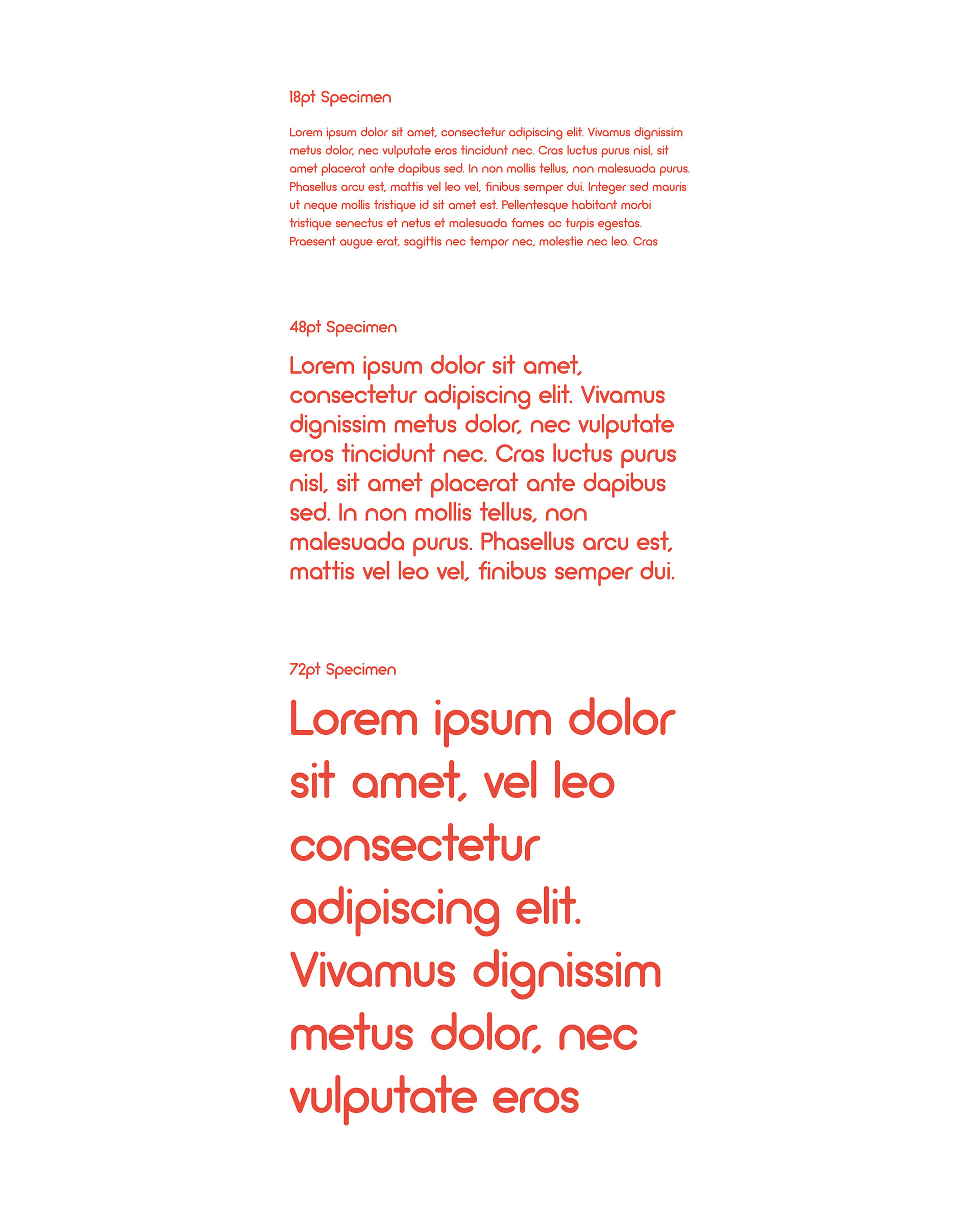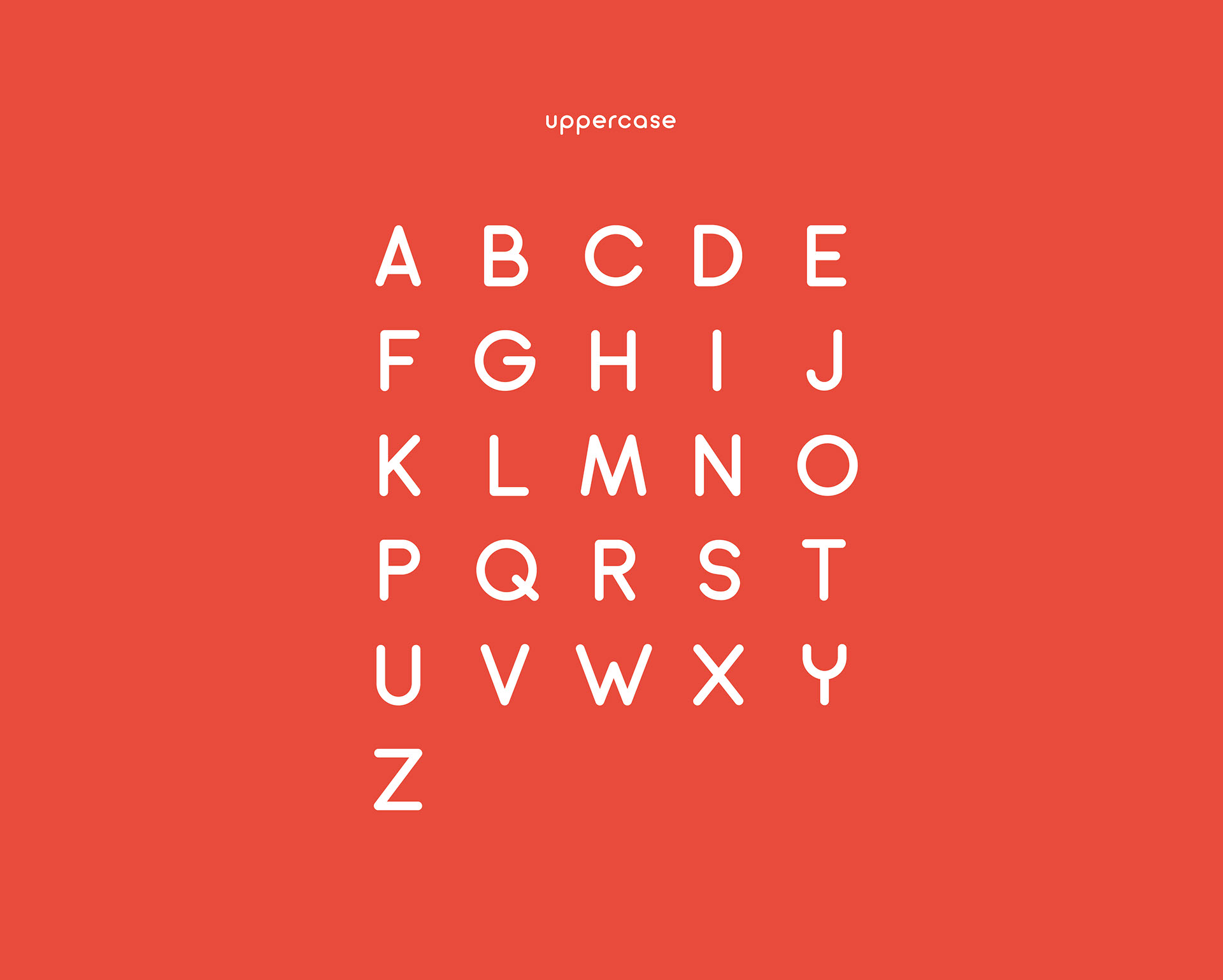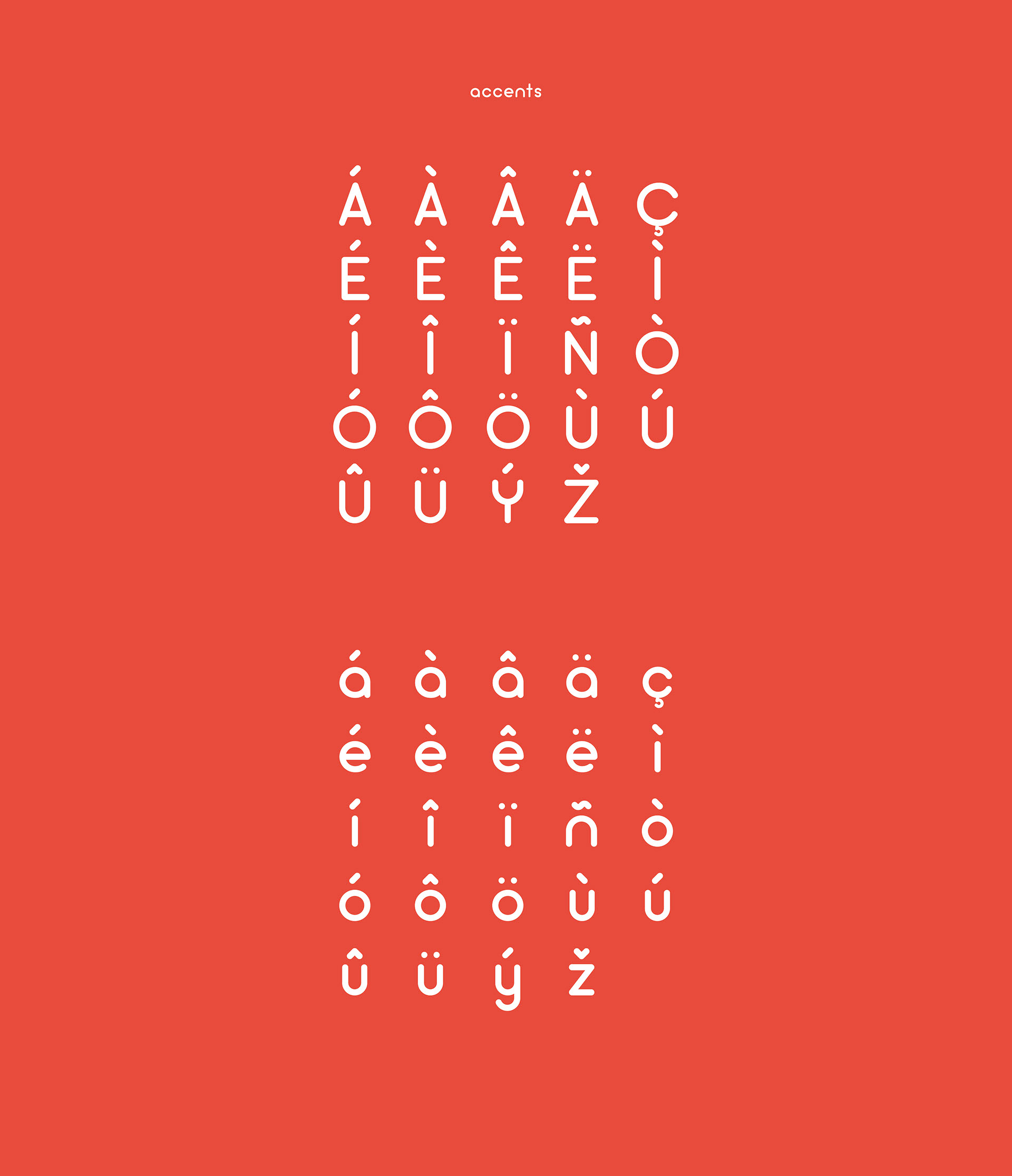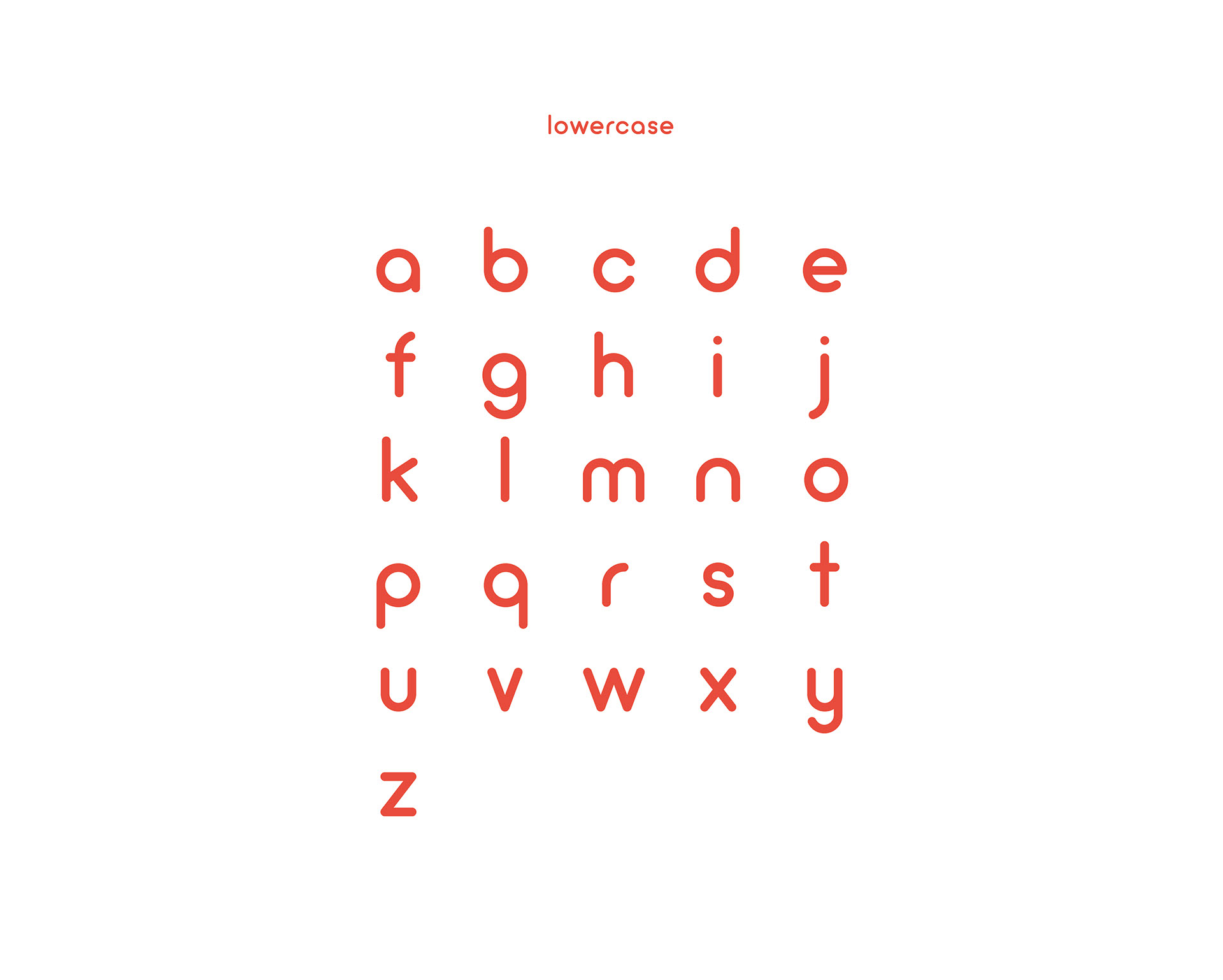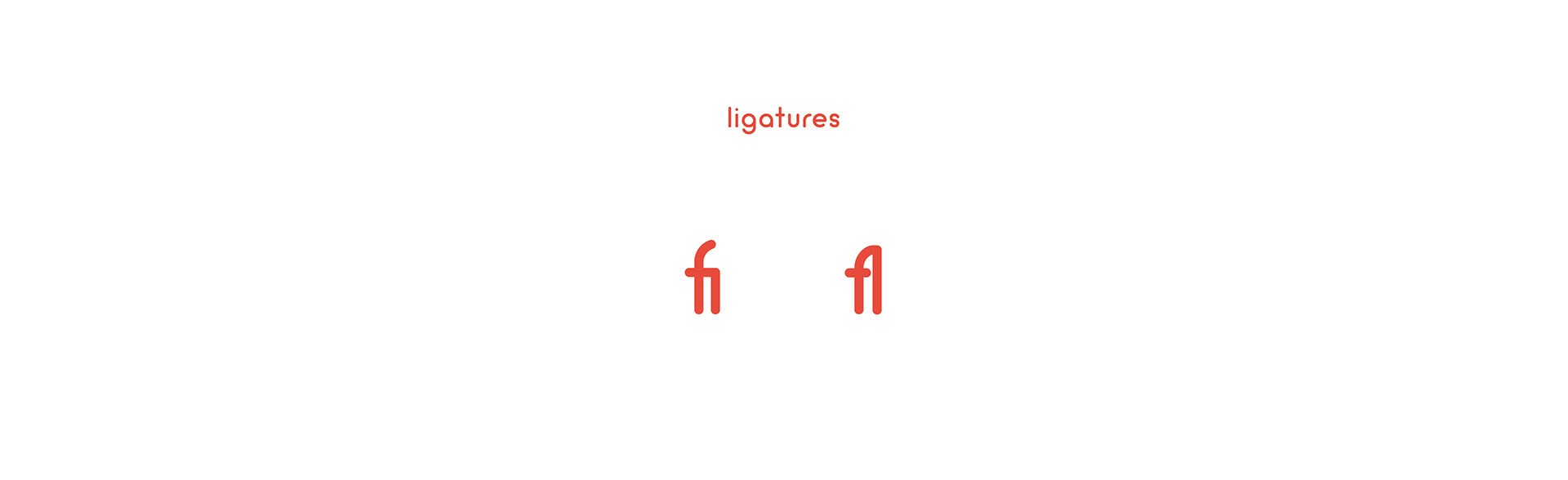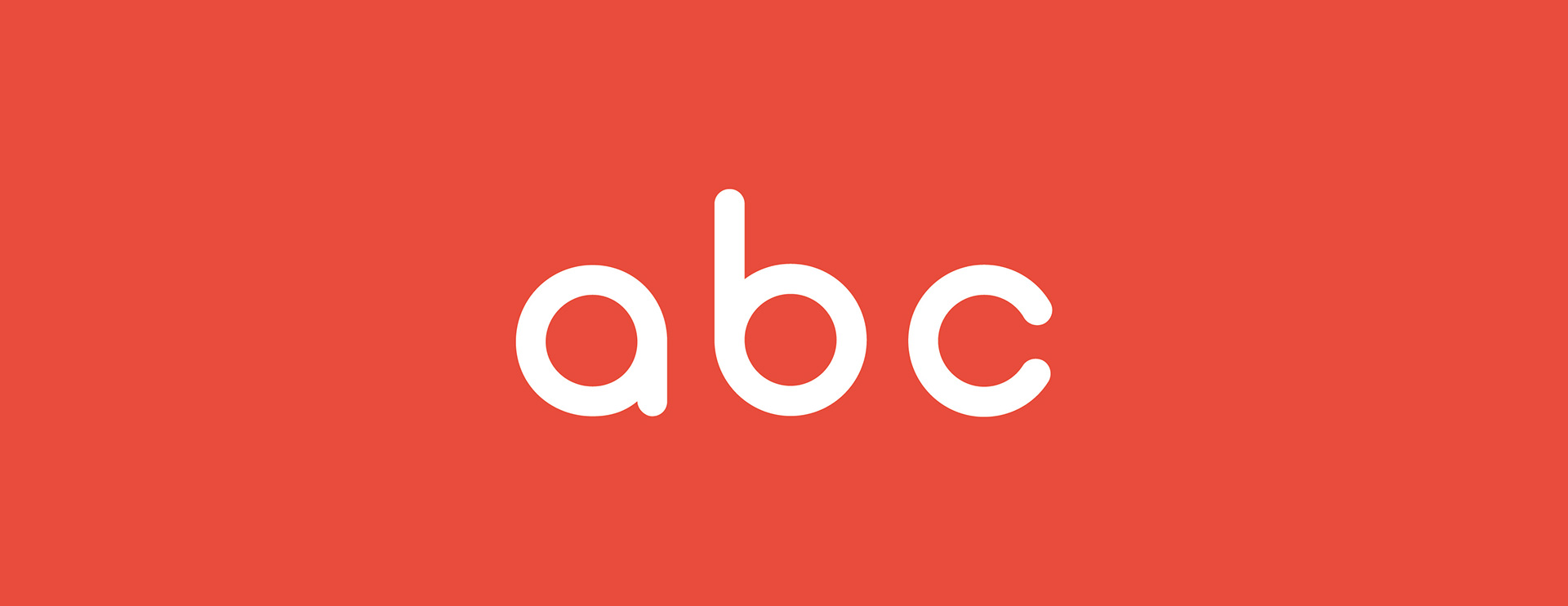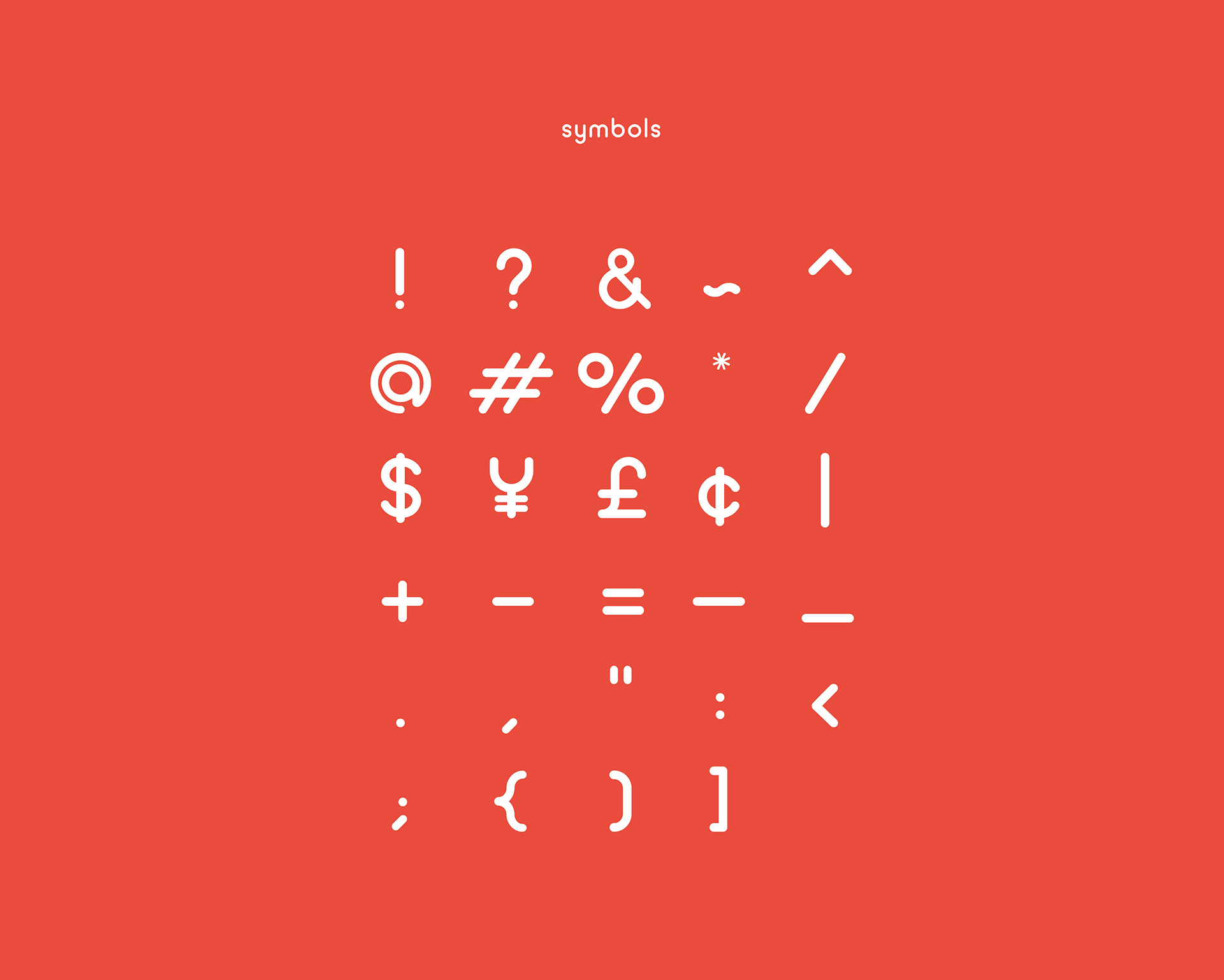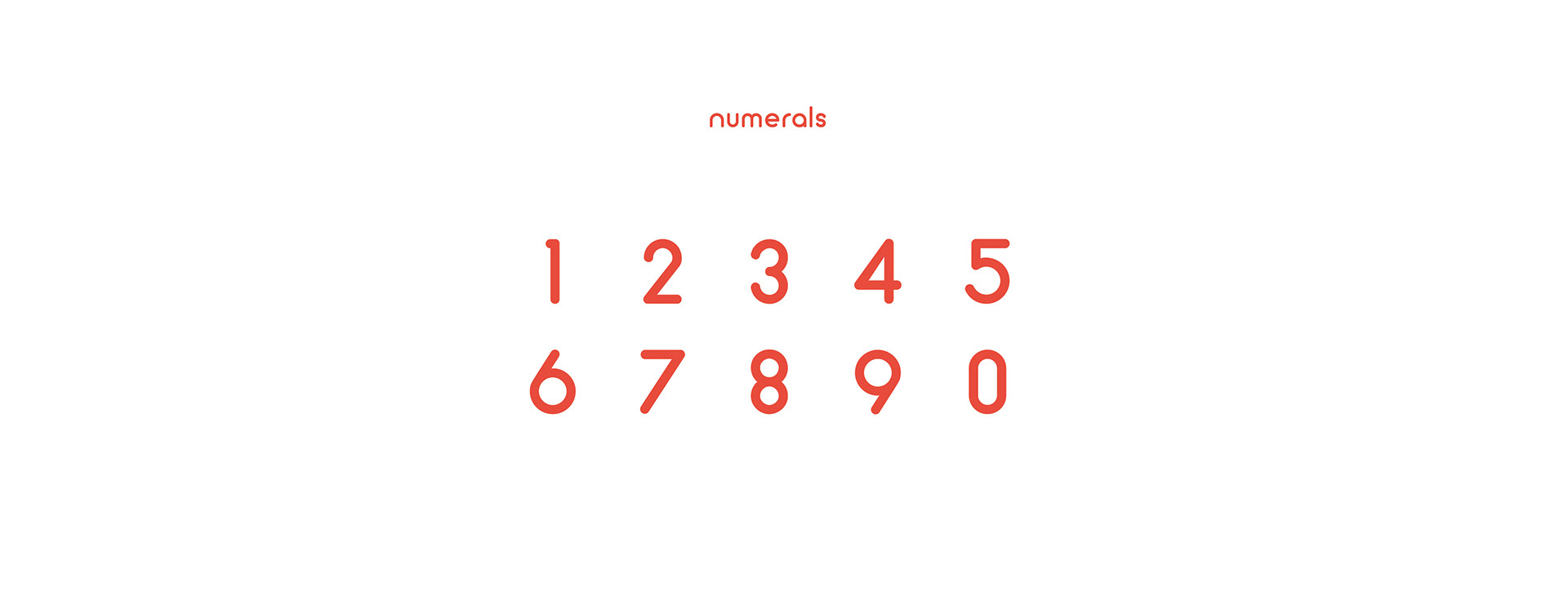
Round out your fonts collection with this gorgeous typeface designed by Matt Ellis! Arciform is a geometric sans serif font with rounds and a light and fluffy feel. Great for print and online, this curvaceous typeface will suit your latest project’s needs.